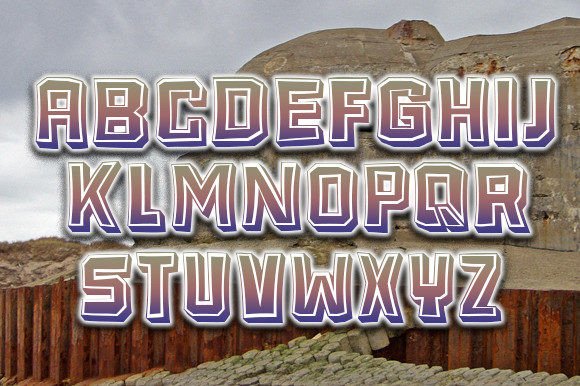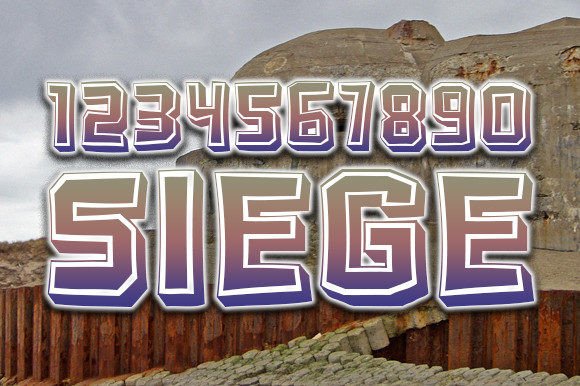
Bunker Font: The Ultimate Display Font for Dramatic Designs
Are you looking for a font that can add a touch of drama and elegance to your designs? Look no further than the Bunker Font! This stunning display font is perfect for designers and crafters who want to make a statement with their work. In this article, we’ll take a closer look at the Bunker Font, its features, and how you can use it to elevate your designs.
What is Bunker Font?
Bunker Font is a dramatic display font designed to make a bold statement. Its unique and stylish lettering makes it perfect for a wide range of design projects, from branding and advertising to crafting and DIY projects. The font’s sleek and modern design ensures that it will stand out from the crowd, adding a touch of sophistication and elegance to any design.
Key Features of Bunker Font
So, what makes Bunker Font so special? Here are some of its key features:
- Dramatic and bold: Bunker Font is designed to make a statement. Its bold and dramatic lettering ensures that your designs will grab attention and leave a lasting impression.
- Unique and stylish: The font’s unique and stylish lettering makes it perfect for designers and crafters who want to add a touch of elegance and sophistication to their work.
- Versatile: Bunker Font is perfect for a wide range of design projects, from branding and advertising to crafting and DIY projects.
How to Use Bunker Font in Your Designs
So, how can you use Bunker Font in your designs? Here are some ideas to get you started:
- Branding and advertising: Use Bunker Font to create bold and eye-catching logos, posters, and advertisements that will grab attention and leave a lasting impression.
- Crafting and DIY projects: Add a touch of elegance and sophistication to your crafting and DIY projects, such as handmade cards, gift tags, and scrapbooking pages.
- Social media graphics: Use Bunker Font to create stunning social media graphics, such as Facebook posts, Instagram stories, and Twitter headers.
- Web design: Use Bunker Font to add a touch of drama and elegance to your website’s design, such as in headings, titles, and captions.
Tips and Tricks for Using Bunker Font
Here are some tips and tricks for using Bunker Font in your designs:
- Use it sparingly: Bunker Font is a bold and dramatic font, so use it sparingly to avoid overwhelming your design.
- Pair it with other fonts: Pair Bunker Font with other fonts to create a unique and stylish look.
- Experiment with colors: Experiment with different colors and textures to add depth and interest to your design.
- Have fun: Most importantly, have fun and be creative with Bunker Font!
In conclusion, Bunker Font is a stunning display font that is perfect for designers and crafters who want to add a touch of drama and elegance to their work. Its unique and stylish lettering makes it perfect for a wide range of design projects, from branding and advertising to crafting and DIY projects. With its ease of use and versatility, Bunker Font is a must-have font for any designer or crafter looking to elevate their designs.